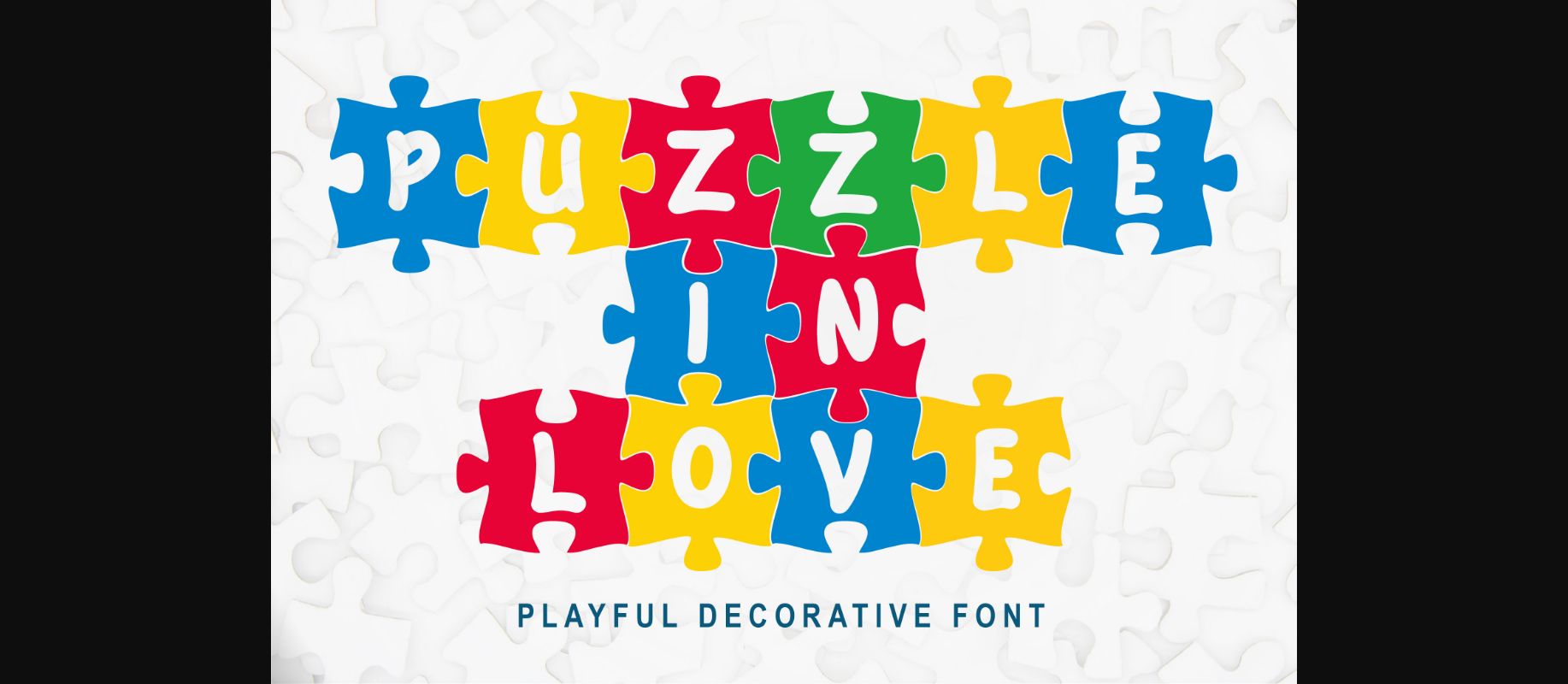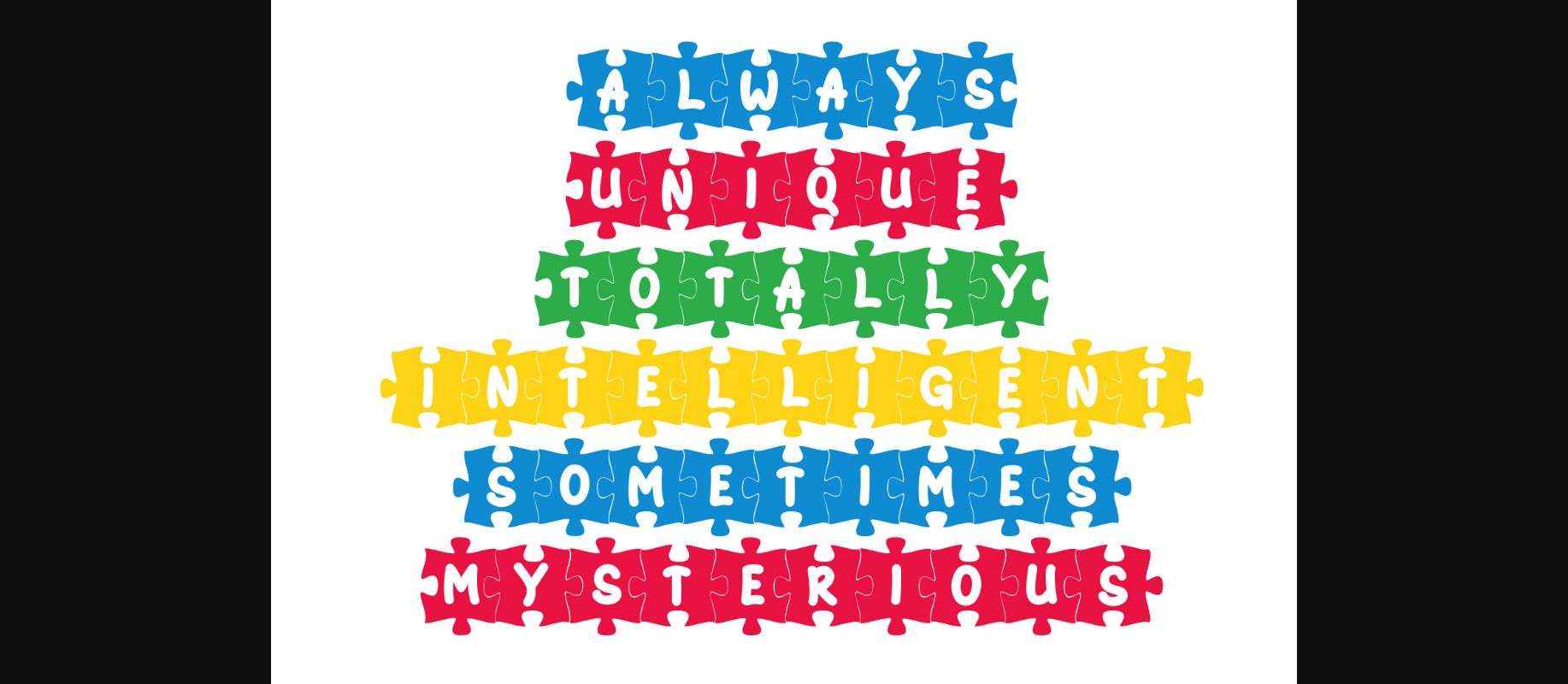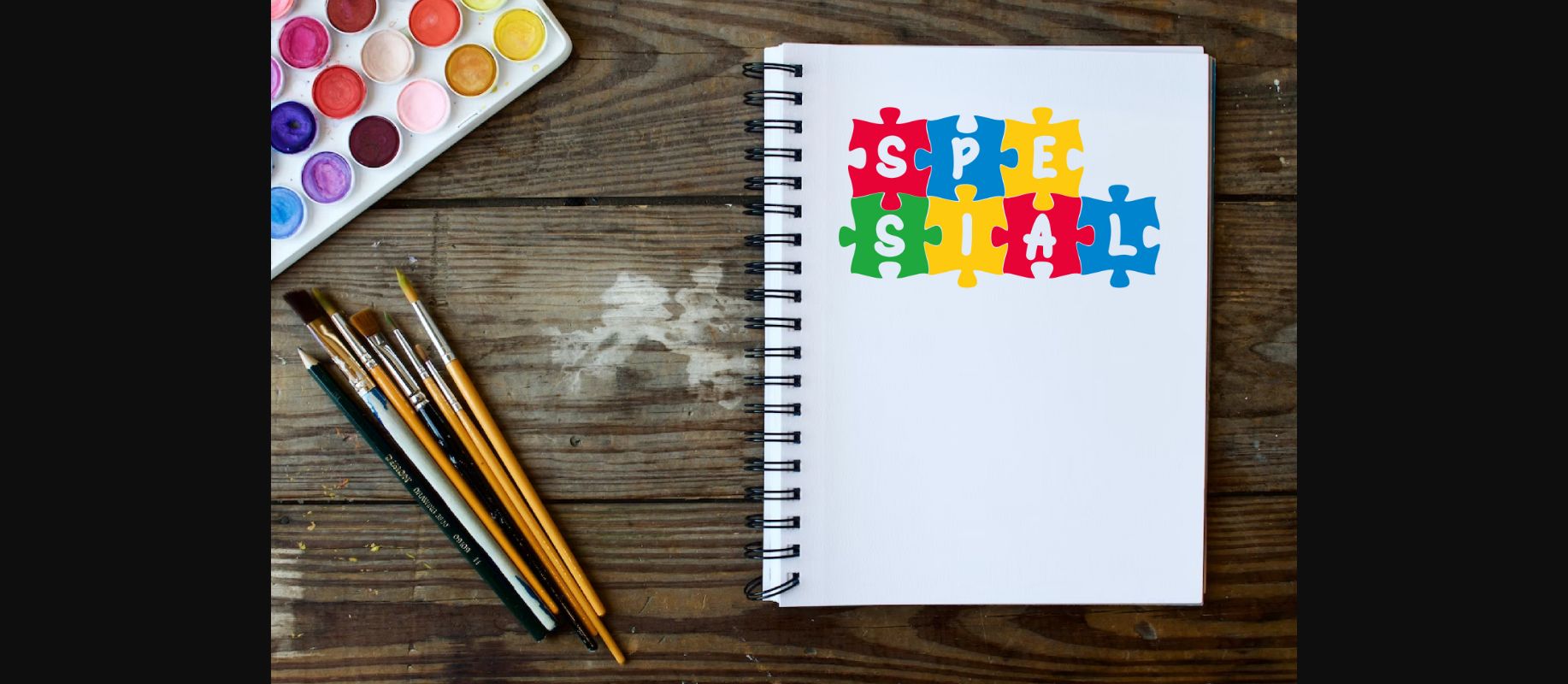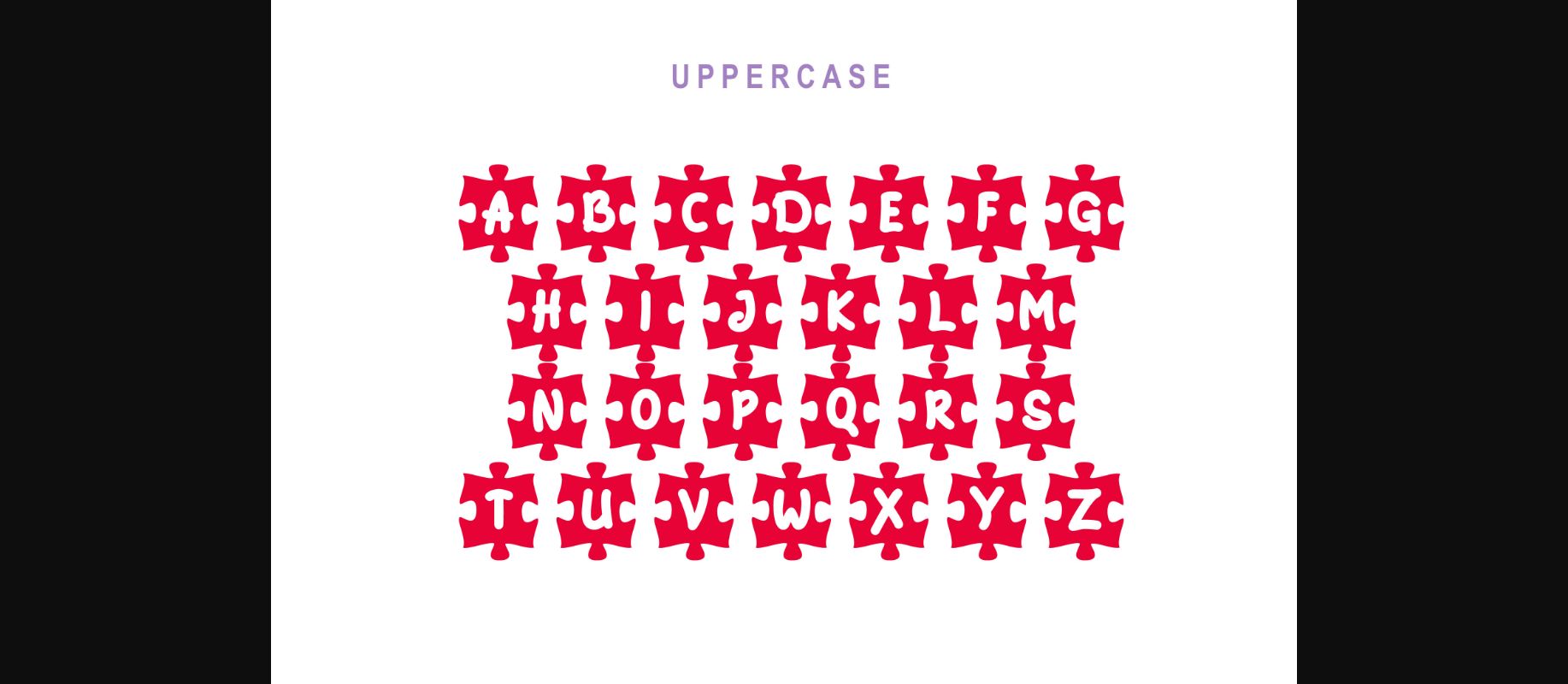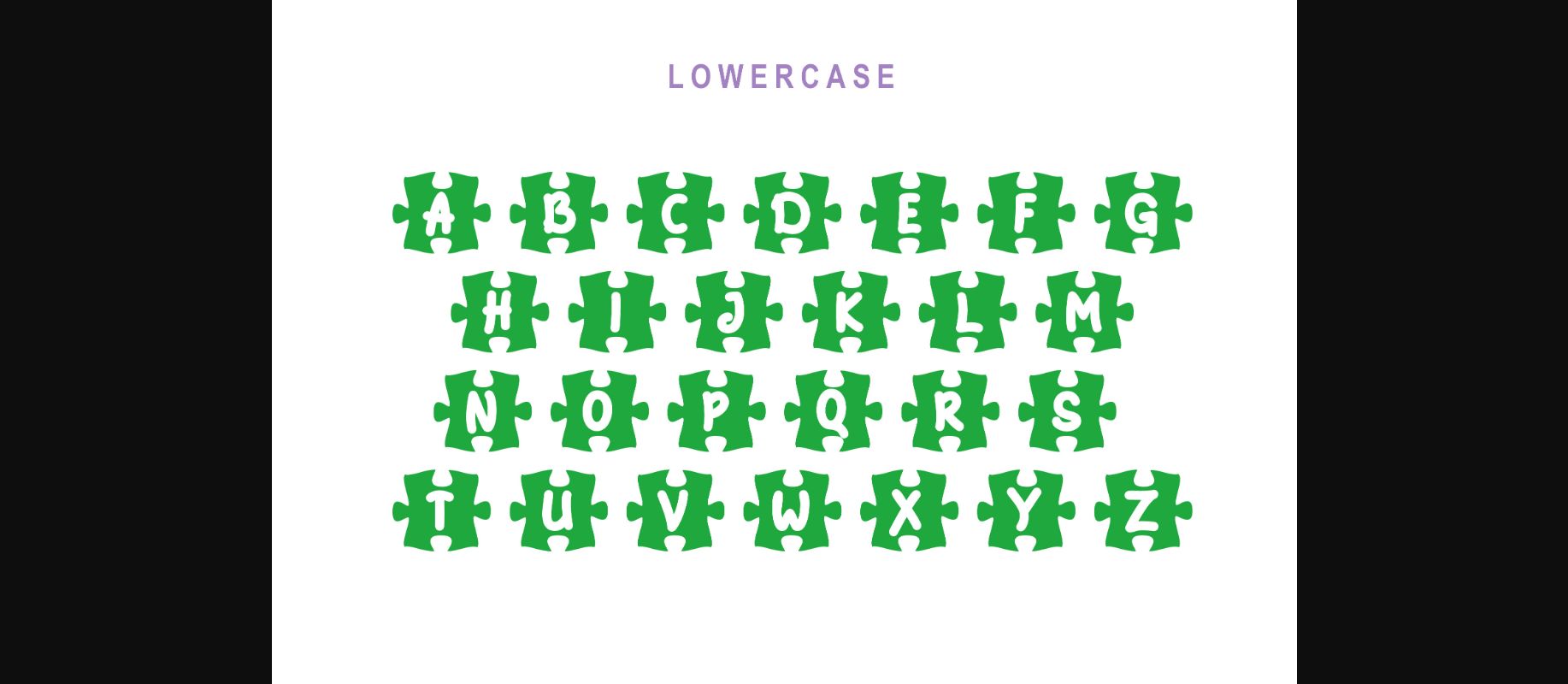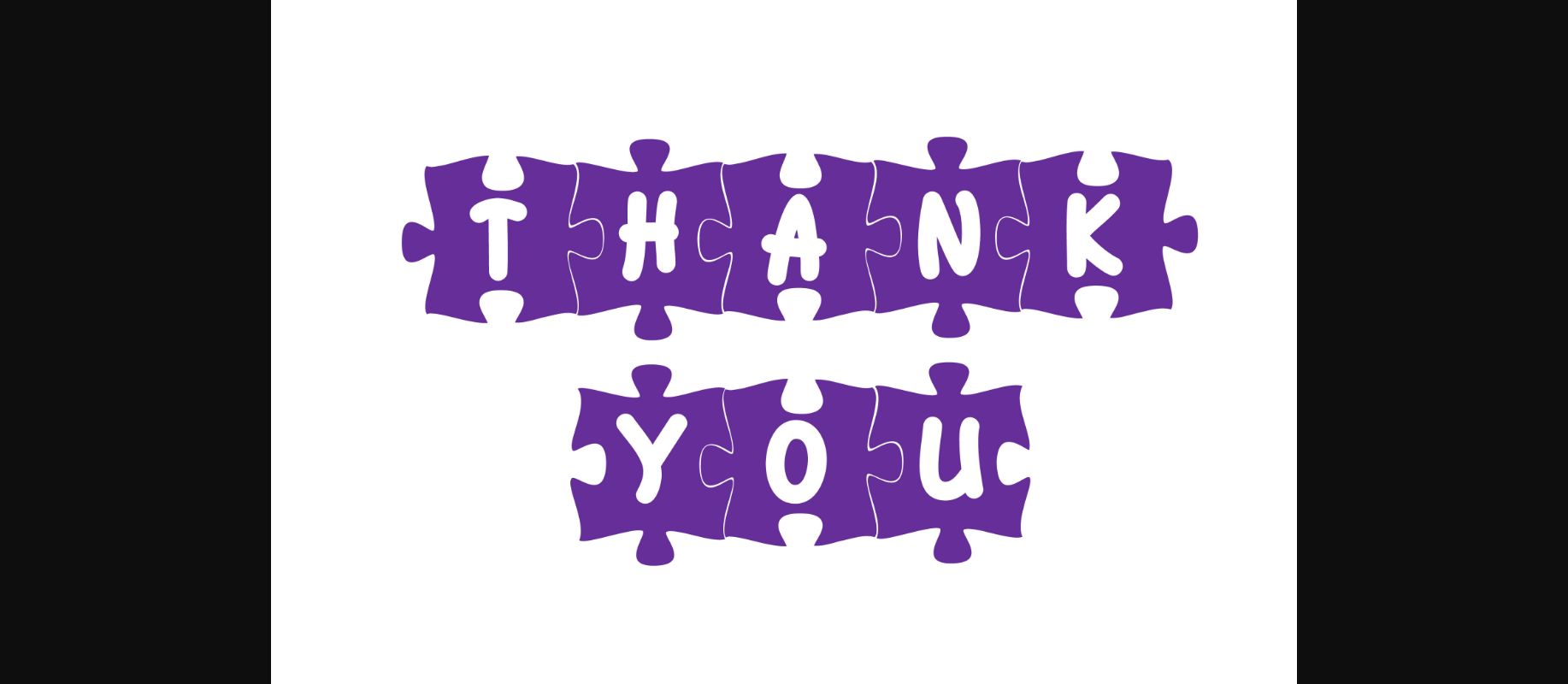
HomeDecorative FontsPuzzle in Love Font Decorative Fonts Puzzle in Love Font FacebookXPinterestWhatsApp 1 of 8 ... Puzzle in Love Font Poster 2... Puzzle in Love Font Poster 3... Puzzle in Love Font Poster 4... Puzzle in Love Font Poster 5... Puzzle in Love Font Poster 6... Puzzle in Love Font Poster 7... Puzzle in Love Font Poster 8... About Puzzle in Love Font Puzzle in Love is a unique and fun playful decorative font, featuring countinous puzzle pieces. Add this font to your creative ideas. DOWNLOAD NOW People also explored Simple Font Sleeping Wild Font Mechonic Bold Font Human Silhouettes Font Christmas Stocking Font Bosque Font Shrifton Font Sorai Font Hockleys Font 306 0 TagsPuzzle in Love Font Previous articleHallowitch FontNext articleSports Font LEAVE A REPLY Cancel reply Comment: Please enter your comment! Name:* Please enter your name here Email:* You have entered an incorrect email address! Please enter your email address here Website: Save my name, email, and website in this browser for the next time I comment. Personal Use Free Laneway Personal Use Free Read more about this font Bigstone Personal Use Free Read more about this font Dealerplate California Personal Use Free Read more about this font Roustel Personal Use Free Read more about this font BLOG Modern Sans-Serif Fonts That Brands Love in 2025 In 2025, modern sans-serif fonts remain a top choice for brands looking to project clarity, professionalism, and... Transform Your Website: Elevate Your Typography with 7 Best Web Font Generators The 10 Best Handwriting Fonts to Add Personality to Your Designs Free vs Paid Fonts: Why Investing in Premium Fonts Is Worth It